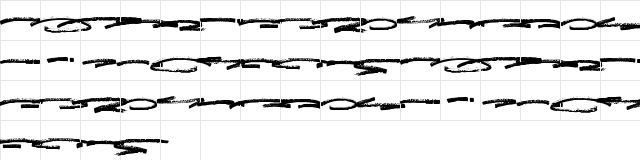
Jungle Bloods Swash Regular
Design Context for Jungle Bloods Swash Typeface
Jungle Bloods Swash leans into the macabre with letterforms designed to disturb and intrigue in equal measure.
Ideal for Halloween projects, horror film titles, haunted house signage, and dark editorial design.
Font Pairing: Pair with a clean neutral sans-serif for body copy to let Jungle Bloods Swash's character lead without overwhelming the composition.
Pro Tip: Jungle Bloods Swash works best as a headline or focal element. Pair it against plain, neutral body text to amplify the contrast.